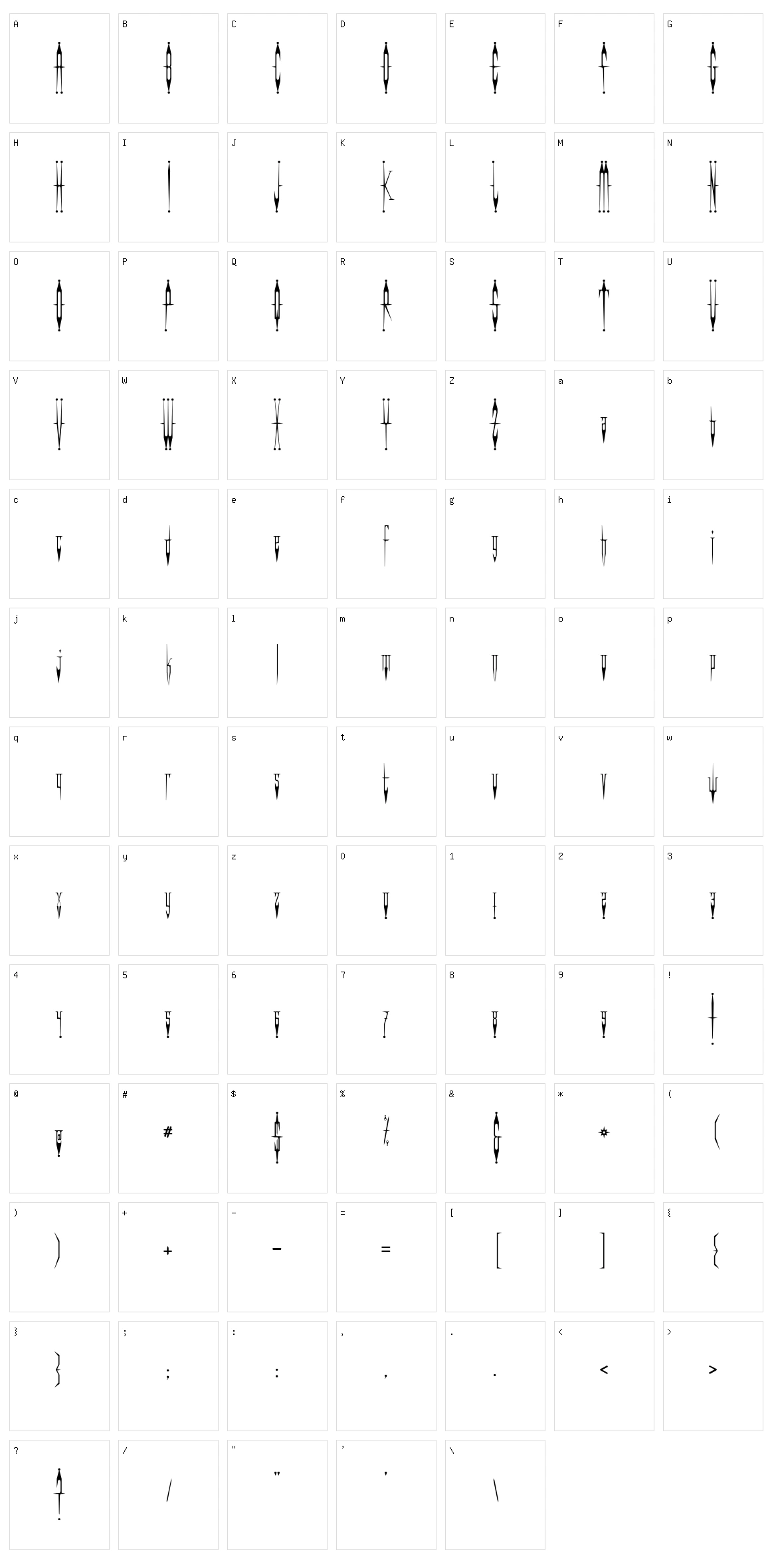
Evil Clown
Designed by: Scotty Ulrich
Evil Clown, public domain version.
Scott Ulrich, designer (although I use that term loosely.)
Pay no attention to people like Vignelli or Rand, as they simply don't appreciate fine typography.